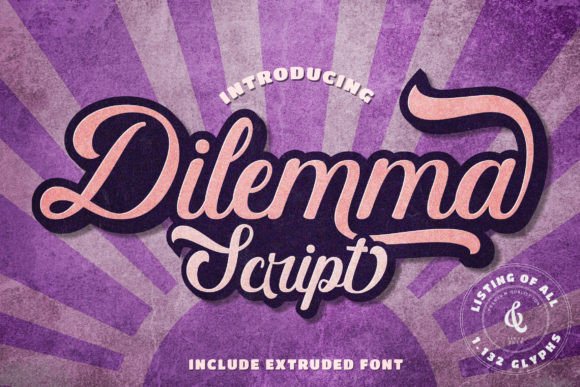
Step into a world of vintage charm with Dilemma Script, a captivating font that exudes nostalgia and elegance. Inspired by the allure of bygone eras, this script transports you back in time with its delicate curves and bold strokes. Embrace the allure of vintage aesthetics and elevate your designs with Dilemma Script, the ultimate font for creating logos that resonate with timeless appeal.
Dilemma Script's versatility knows no bounds. Whether you're designing for a vintage logo, a captivating logotype, or a t-shirt with a retro vibe, this font is your perfect companion. Its timeless charm adds a touch of sophistication to branding, packaging, and posters, while its bold presence commands attention in headlines and quotes. With Dilemma Script, your designs will exude a sense of history and authenticity that captivates audiences.
Unleash your creativity and explore the endless possibilities of Dilemma Script. Craft vintage badges that evoke a sense of nostalgia, or create retro quotes that transport readers to another era. This font's versatility extends to branding and packaging, adding a touch of elegance and distinction to your products. Let Dilemma Script be your guide as you embark on a journey through time, leaving an indelible mark on the world of design.
With Dilemma Script, you gain access to a treasure trove of glyphs and ligatures, all meticulously encoded for your convenience. Unleash your imagination and explore the boundless creative possibilities, crafting designs that speak volumes and leave a lasting impression. Experience the joy of seamless font usage, where every letter flows effortlessly into the next, creating a symphony of visual harmony.